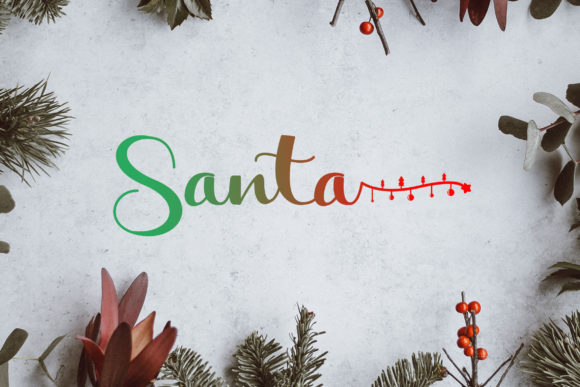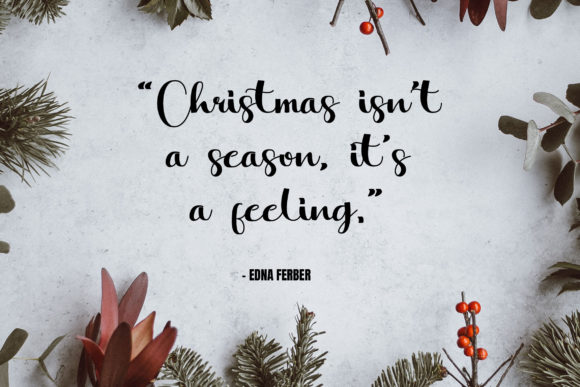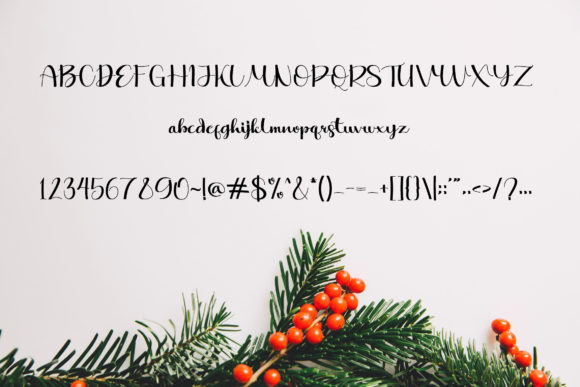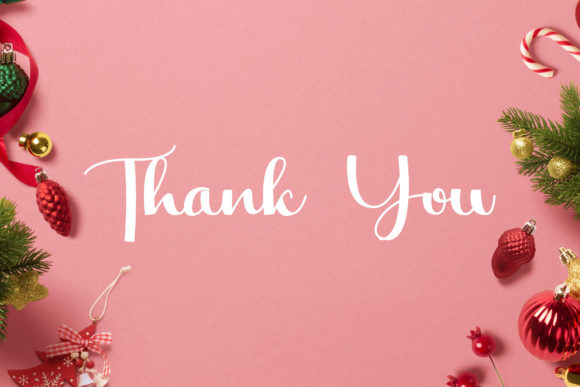
Get Ready to Fall in Love with the After Christmas Font
As a designer, there’s nothing quite like the thrill of discovering a new font that sparks creativity and inspires your next big project. For me, that moment came when I stumbled upon the enchanting After Christmas Font. Its elegant, ravishing style had me hooked from the very first glance.
With its PUA encoded features, this font is a game-changer for designers. It allows for seamless access to all glyphs and swashes, making it a dream to work with. Whether you’re crafting stunning wedding invitations, designing beautiful stationery art, or creating eye-catching social media posts, the After Christmas Font is the perfect tool to elevate your designs.
What sets this font apart is its unique blend of elegance and whimsy, making it an invaluable addition to any designer’s toolkit. Get ready to fall in love with the After Christmas Font and discover the endless possibilities it has to offer!
After Christmas Font Key Features
- Font Family: A unique and festive font designed specifically for the holiday season, perfect for creating a Christmas atmosphere in designs.
- Size: The font family includes multiple weights and styles, ranging from Light to Bold, to accommodate different design needs and preferences.
- Resolution: Optimized for high-resolution displays, ensuring crisp and clear typography in designs, even at larger sizes.
- Unique Characteristics: The font features intricate and ornate details, such as holly leaves, berries, and snowflakes, adding a touch of whimsy and festivity to designs.
- Scalability: Designed to be highly scalable, allowing for easy use in a wide range of design applications, from small text to large headings and titles.
After Christmas Font Review
At first glance, the After Christmas Font catches your eye with its bold and playful aesthetic ✨. The font’s unique blend of modern and vintage elements gives it a distinctive look that’s perfect for holiday-themed projects. The font’s wide range of characters, including ornaments and icons, adds to its versatility and makes it a great choice for designers looking to create eye-catching holiday materials.
One of the standout features of the After Christmas Font is its flexibility ✨. It’s suitable for a wide range of applications, from posters and flyers to invitations and social media graphics. The font’s bold lines and festive design elements make it a great choice for designers looking to add a touch of holiday cheer to their projects.
In terms of overall impression, I’d say the After Christmas Font is a solid choice for holiday-themed projects ✨. While it may have some limitations, its unique design and flexibility make it a great addition to any designer’s toolkit. With a little creativity and planning, designers can use the After Christmas Font to create truly memorable holiday materials.
To maximize the impact of the “After Christmas Font,” consider the following tips:
Use the font in combination with other festive graphics and design elements to create a cohesive holiday look.
Experiment with different font sizes and styles to add visual interest and emphasis to your text.
Consider using the font in a bold or italic style to add emphasis and create a sense of drama.
The “After Christmas Font” is ideal for:
Holiday marketing campaigns and promotions.
Christmas card and gift tag designs.
Festive social media posts and advertisements.